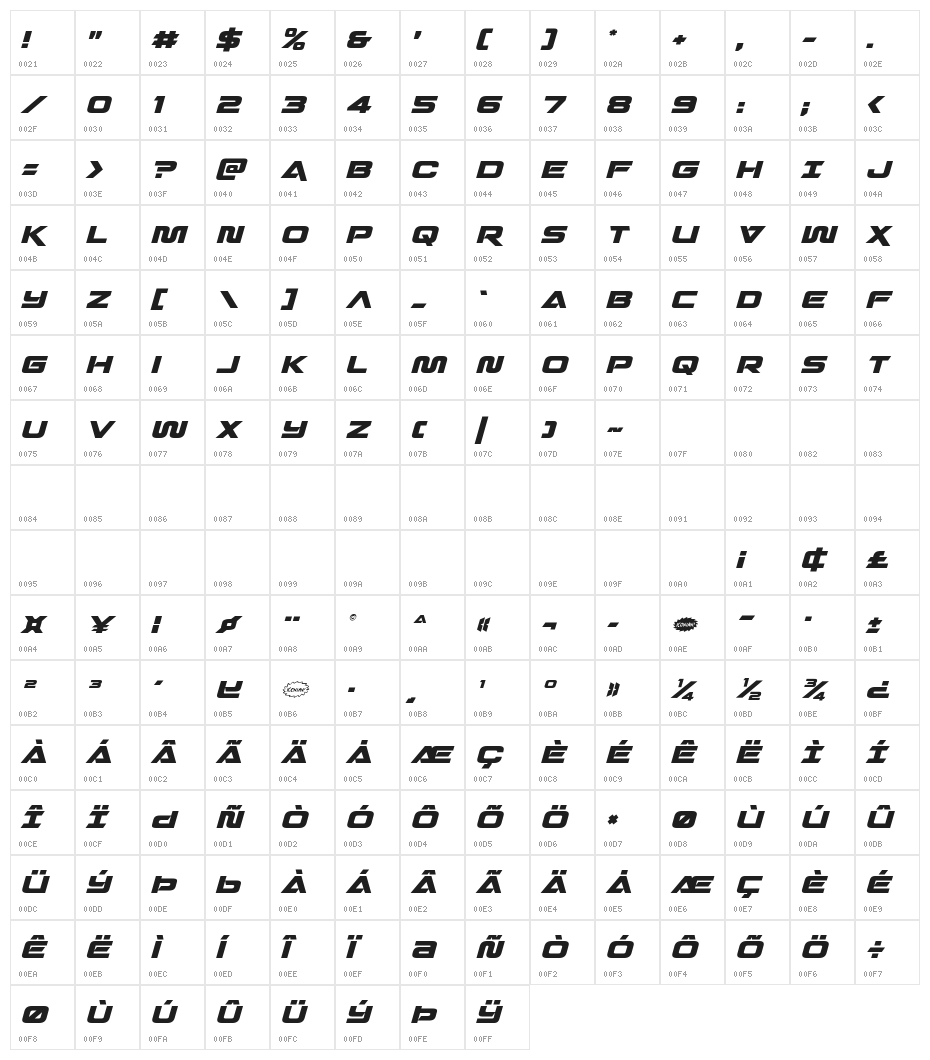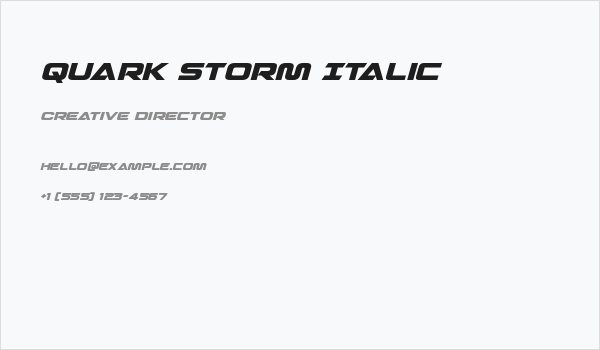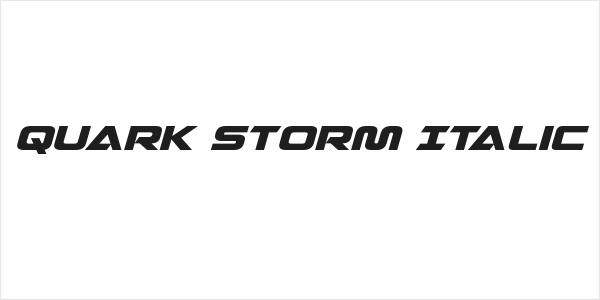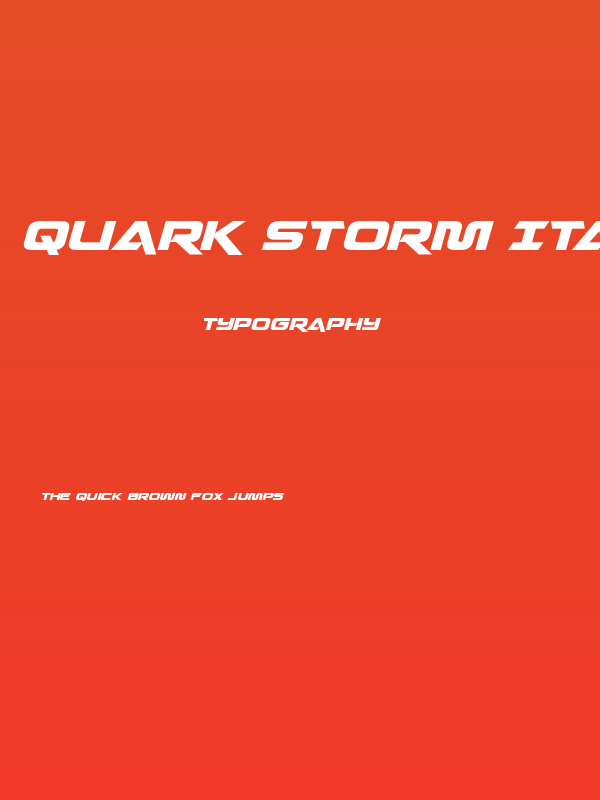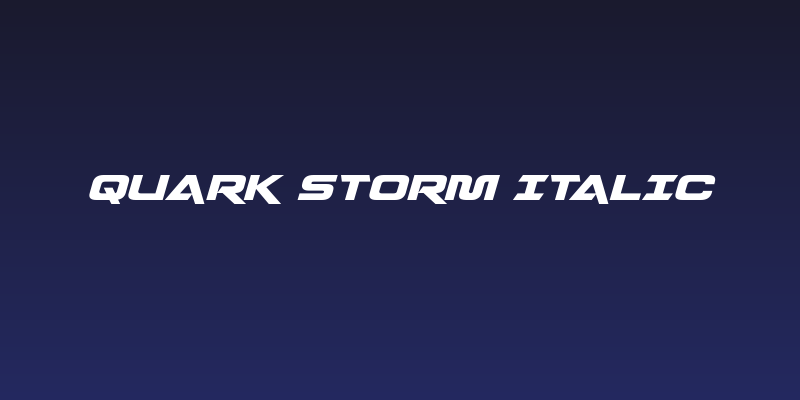
Quark Storm Italic Font
Quark Storm Italic Description
This font features a bold, italicized style with a futuristic and dynamic appearance. The characters are slightly slanted, giving a sense of motion and speed. The strokes are thick and consistent, providing a strong visual impact. The design includes sharp angles and clean lines, contributing to its modern and sleek look. The uppercase and lowercase letters maintain a uniform style, while the numbers and special characters are crafted to match the overall aesthetic. This font is ideal for projects that require a contemporary and energetic feel.
| Proposed Projects | Ideal for technology branding, sports team logos, video game titles, and sci-fi themed designs. |